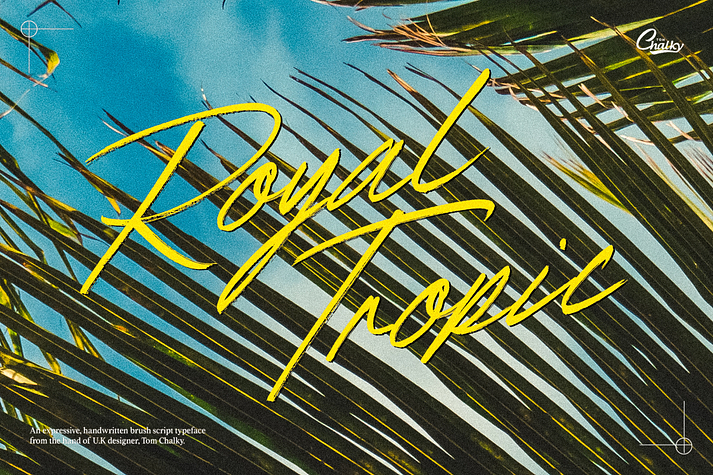
Royal Tropic
Royal Tropic is a font family. This typeface has two styles and was published by Tom Chalky.
Proudly Introducing ‘Royal Tropic‘ – An expressive, legible, and gorgeous (if I do say so myself) brush script typeface. With all the bells and whistles. Multilingual support, ligatures, with regular and super slanted styles. Great for a whole plethora of design projects, specifically branding, and print!
• Two handwritten brush script fonts. One is the original designer, and the other (my favorite) is a more slanted version!